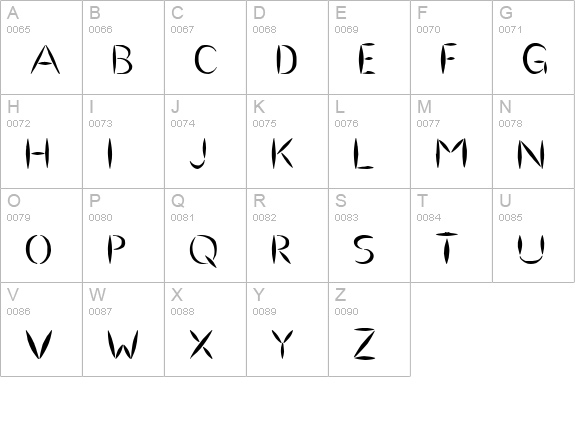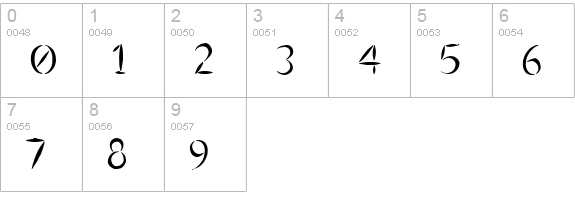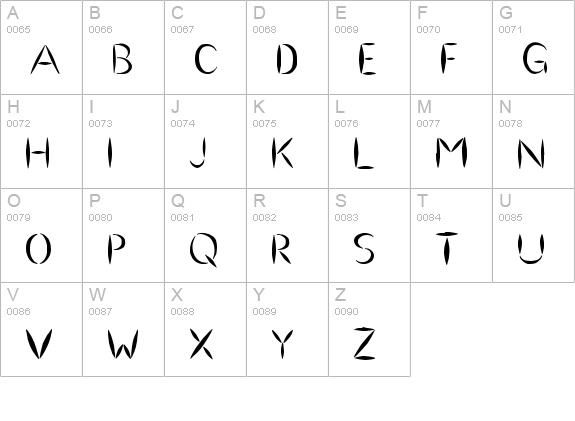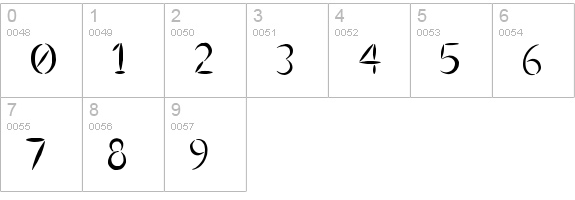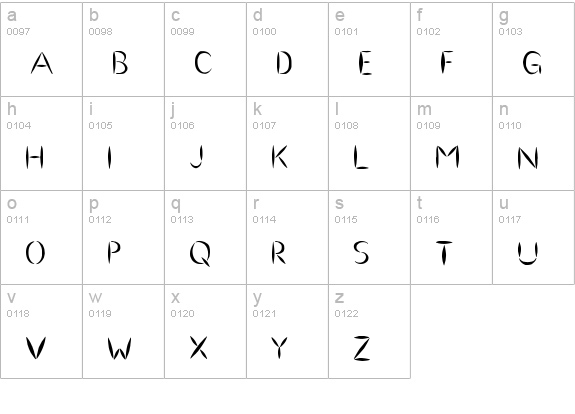
Ulse Freehand Font Details
Ulse Freehand is a captivating and expressive font that effortlessly combines the elegance of calligraphy with the charm of hand-drawn lettering. With its fluid strokes and organic shapes, this typeface captures the essence of artistic freedom and creativity. Each character of Ulse Freehand is meticulously crafted to resemble the imperfections and unique qualities found in freehand lettering. The irregular lines and varying thickness add a touch of authenticity and personality to every word written with this font. The versatility of Ulse Freehand makes it suitable for a wide range of design projects. Whether you are creating eye-catching posters, elegant wedding invitations, or playful branding materials, this font is sure to add a distinct and free-spirited touch to your designs. What sets Ulse Freehand apart is not only its exceptional design but also its accessibility. This font is freely available to download at FontsMarket.com, allowing designers and creatives from all walks of life to enjoy its artistic flair and versatility without any limitations. So, if you are looking to infuse your designs with a sense of freedom and authenticity, look no further than Ulse Freehand. Download it today from FontsMarket.com and let your imagination run wild with this captivating and freely available font.